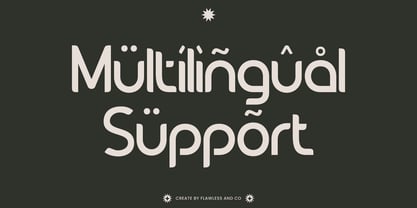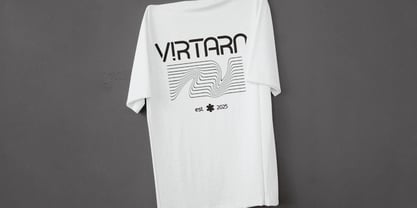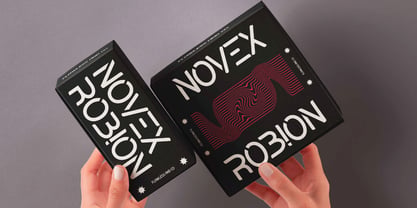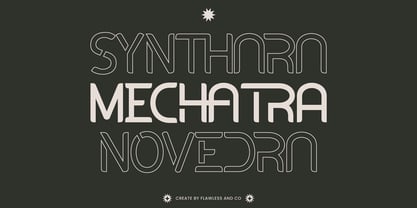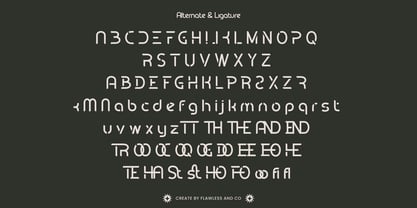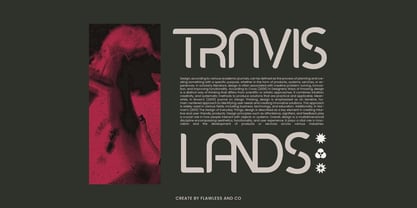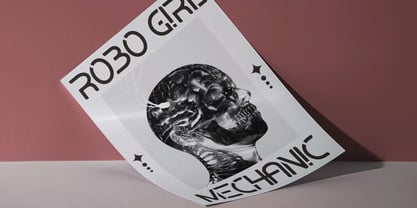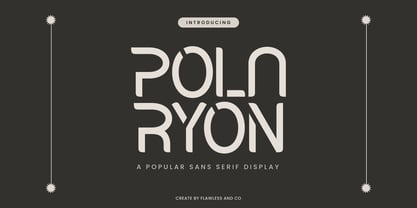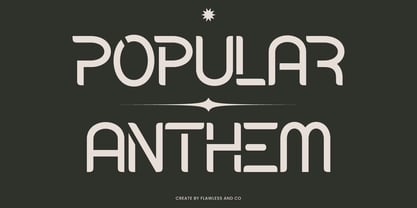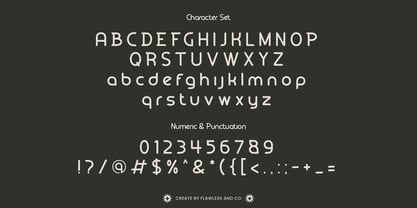
Polaryon
La familia tipográfica Polaryon fue diseñada por Achmad Yani y publicada por Flawlessandco. Polaryon contiene 1 estilos. Más información sobre esta familia
Polaryon is a sleek and modern sans serif display font designed to make a bold statement. With its clean lines and contemporary style, this font is perfect for branding, headlines, tech-related projects, posters, web design, and futuristic visuals. Elevate your designs with the strong and versatile look of Polaryon.
Features :
Multilingual, Uppercase alphabet A-Z, Lowercase alphabet a-z, Numbers 0-9, Some punctuation, Alternates & Ligatures